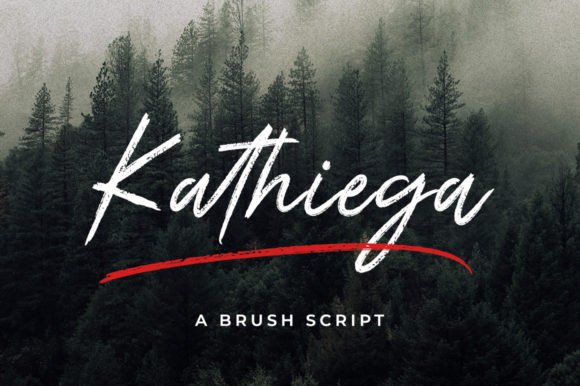
Introducing Kathiega Font, a captivating fusion of elegance and creativity, meticulously crafted to bring your projects to life. This enchanting script, born from the stroke of a brush on paper, exudes a natural charm that will leave you spellbound. Immerse yourself in a world where words dance with grace and personality, transforming your designs into captivating masterpieces.
With Kathiega Font, you'll effortlessly elevate your creations, whether it's a fashion blog that demands attention, a poster that commands a room, or a wedding invitation that whispers romance. Its versatility knows no bounds, making it the perfect companion for clothing designs, book covers, and branding that speaks volumes.
Step into a realm where creativity flourishes and individuality shines. Let Kathiega Font be your muse, guiding you to create designs that resonate with your audience, leaving an indelible impression on their minds. Unleash the power of expression and watch as your projects blossom into works of art.